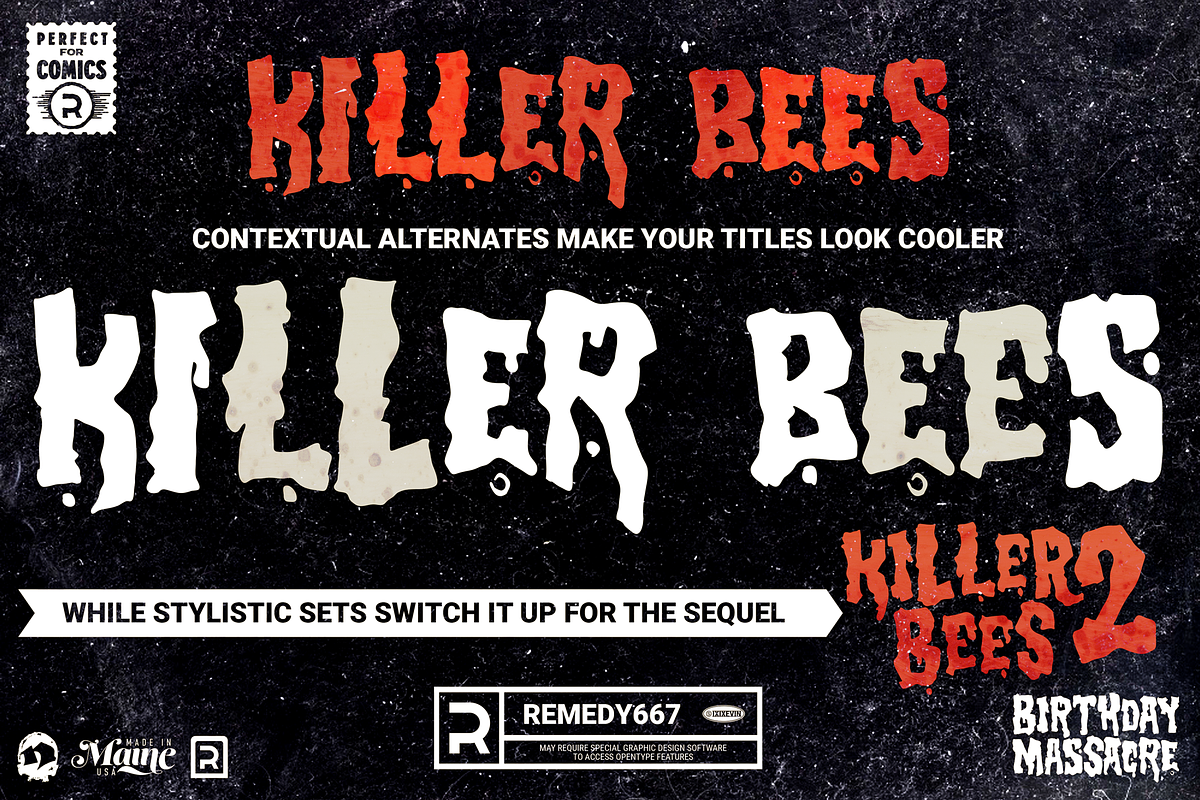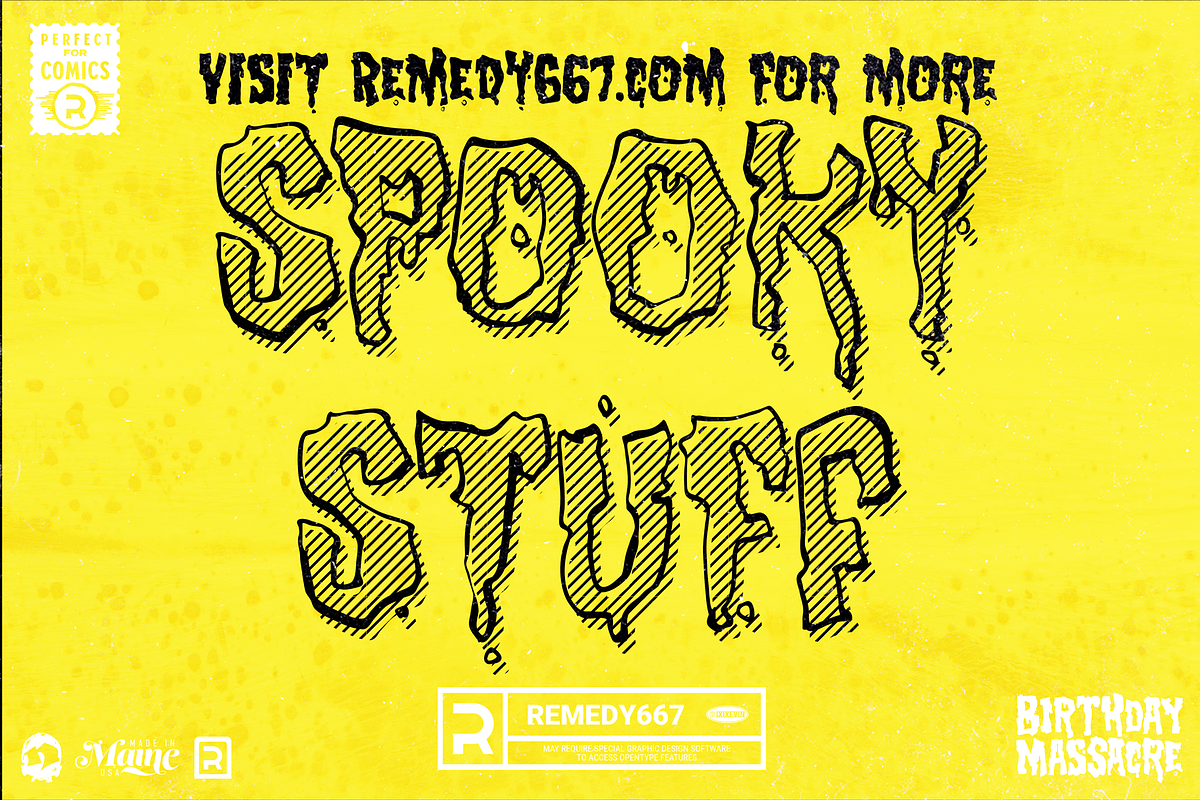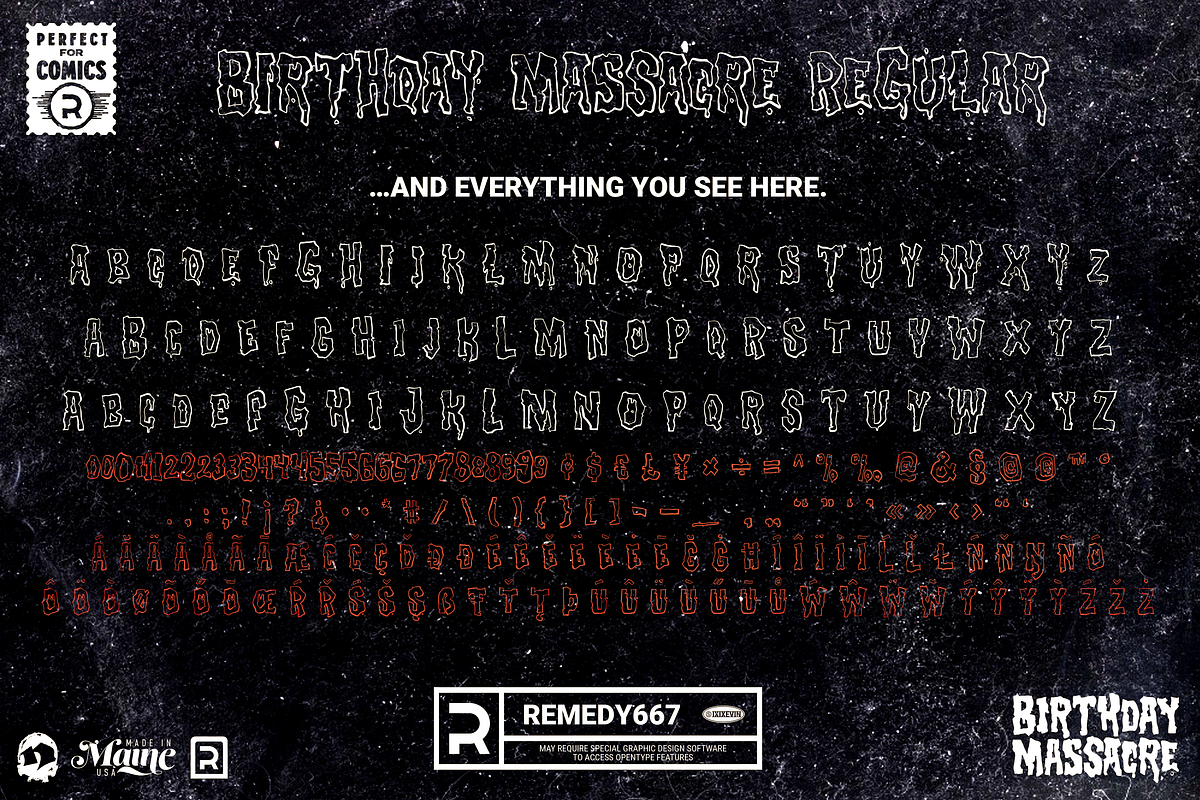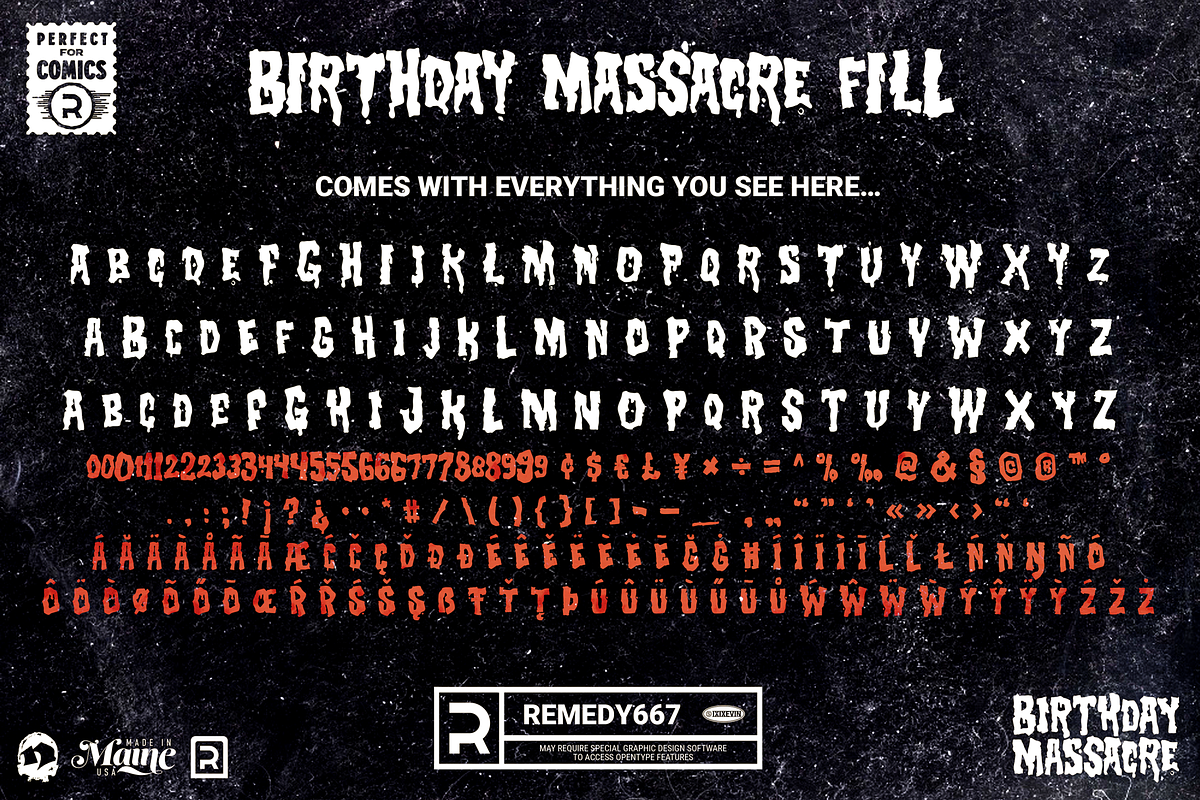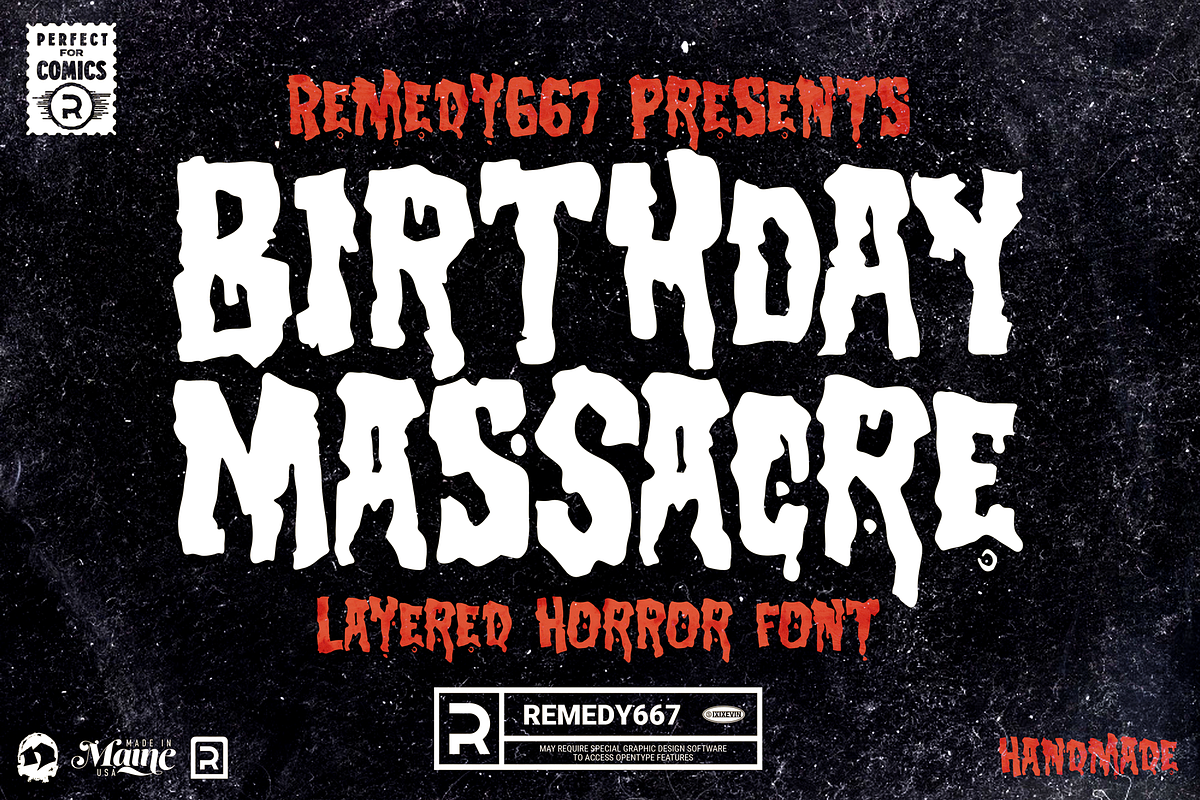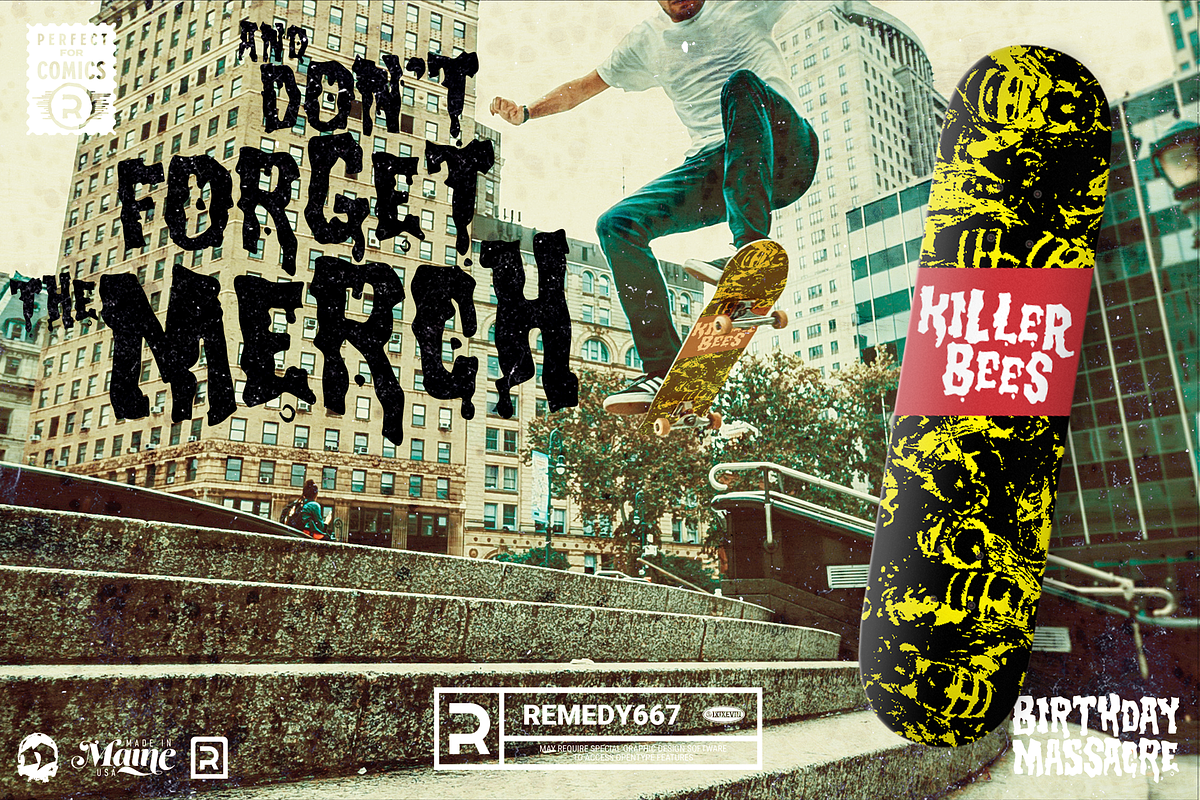
Birthday Massacre
For my birthday, I would like to eat a meatloaf cake with my friends… and I want to design a font that looks straight out of a 1980’s Slasher film. So that's just what I did…
Birthday Massacre is inspired by classic b-horror films and comic books. It's perfect for title copy in a lot of projects ranging anywhere from book covers, posters, comics, apparel, video, coffee mugs… it's pretty versatile. It even has a few versions of every letter, giving you some choice in your letter forms and much more natural look… and some language support, in case you're planning on going outside English speaking countries.